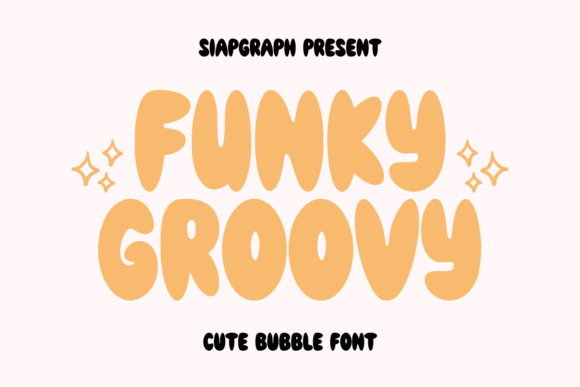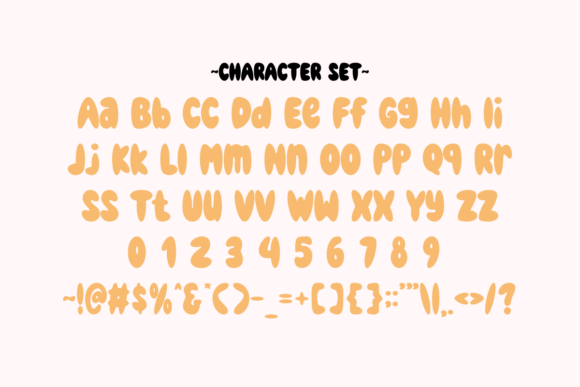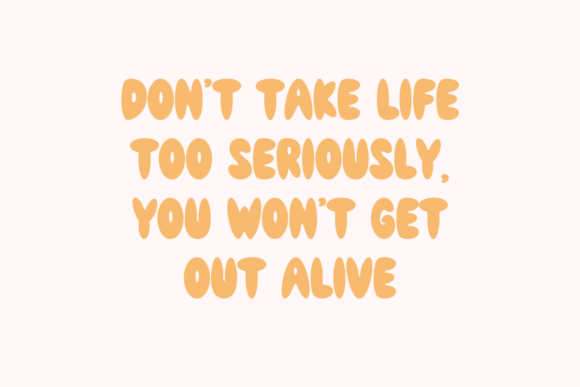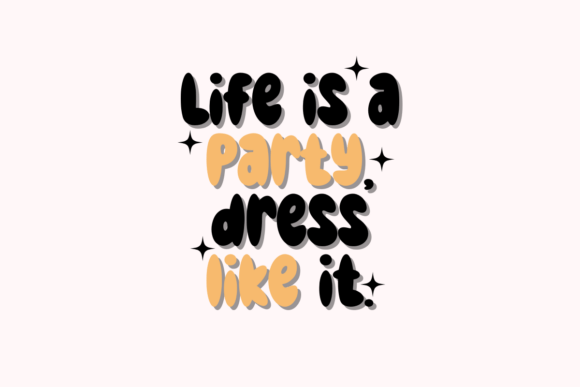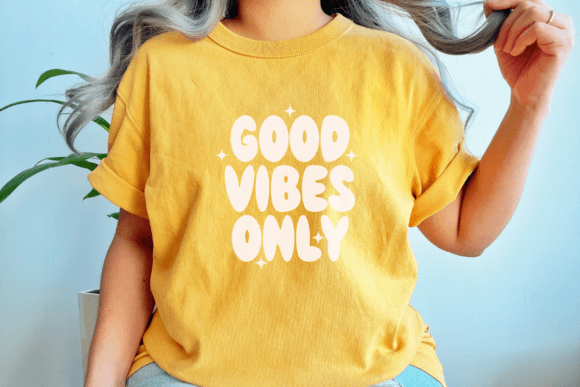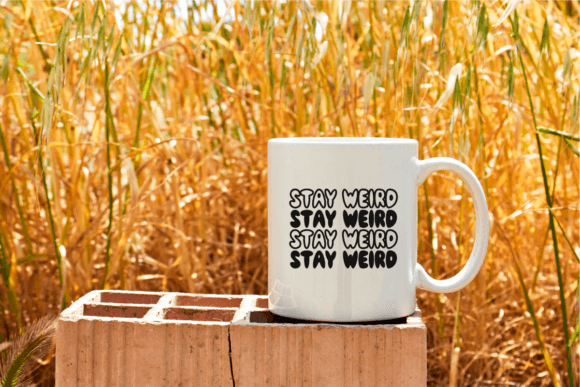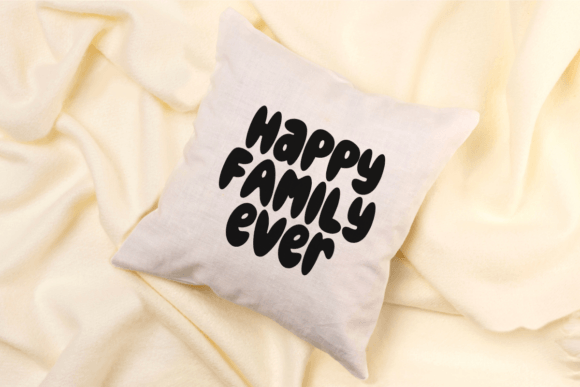
Get Your Groove On: Introducing Funky Groovy Font
Remember that moment when you stumbled upon the perfect font for a project, and everything just clicked? It’s like finding a long-lost treasure, and your creative juices start flowing like never before. For designers, that feeling is a regular occurrence, especially when they come across fonts like the Funky Groovy Font.
This playful bubble font is a masterclass in nostalgia, evoking memories of a bygone era with its rounded, bouncy letters and cheerful style. Whether you’re creating a retro-themed menu, branding for a vintage-inspired business, or simply want to add a touch of whimsy to your designs, the Funky Groovy Font is the perfect companion.
With its versatility and charm, the Funky Groovy Font is an invaluable addition to any designer’s toolkit, guaranteed to bring a smile to your face and a dash of fun to your projects.
Funky Groovy Font Key Features
- Unique Characteristics: Features a distinctive, hand-drawn feel with a mix of sans-serif and script elements
Funky Groovy Font Review
Funky Groovy Font is a fun, energetic font that’s sure to grab attention. Here are some things that really work well:
- ✨ Unique character: This font stands out from the crowd with its distinctive, hand-drawn feel.
- ✨ Versatility: It’s suitable for a wide range of projects, from music festivals to retro-themed websites.
- ✨ Easy to read: Despite its playful appearance, the font is surprisingly easy to read, even in smaller sizes.
- ⚠️ Limited language support: This font may not be suitable for projects that require a wide range of language support.
- ⚠️ Not ideal for body text: While the font is great for headlines, it may not be the best choice for large blocks of body text.
- ⚠️ Some character limitations: The font may not include all the special characters you need for your project.
Overall, I think Funky Groovy Font is a great choice for projects that need a bit of flair and personality. Just be aware of its limitations and use it wisely.
The Funky Groovy Font is perfect for:
- Creating eye-catching posters and flyers.
- Designing retro-themed websites and social media graphics.
- Adding a fun and playful touch to your presentations and reports.